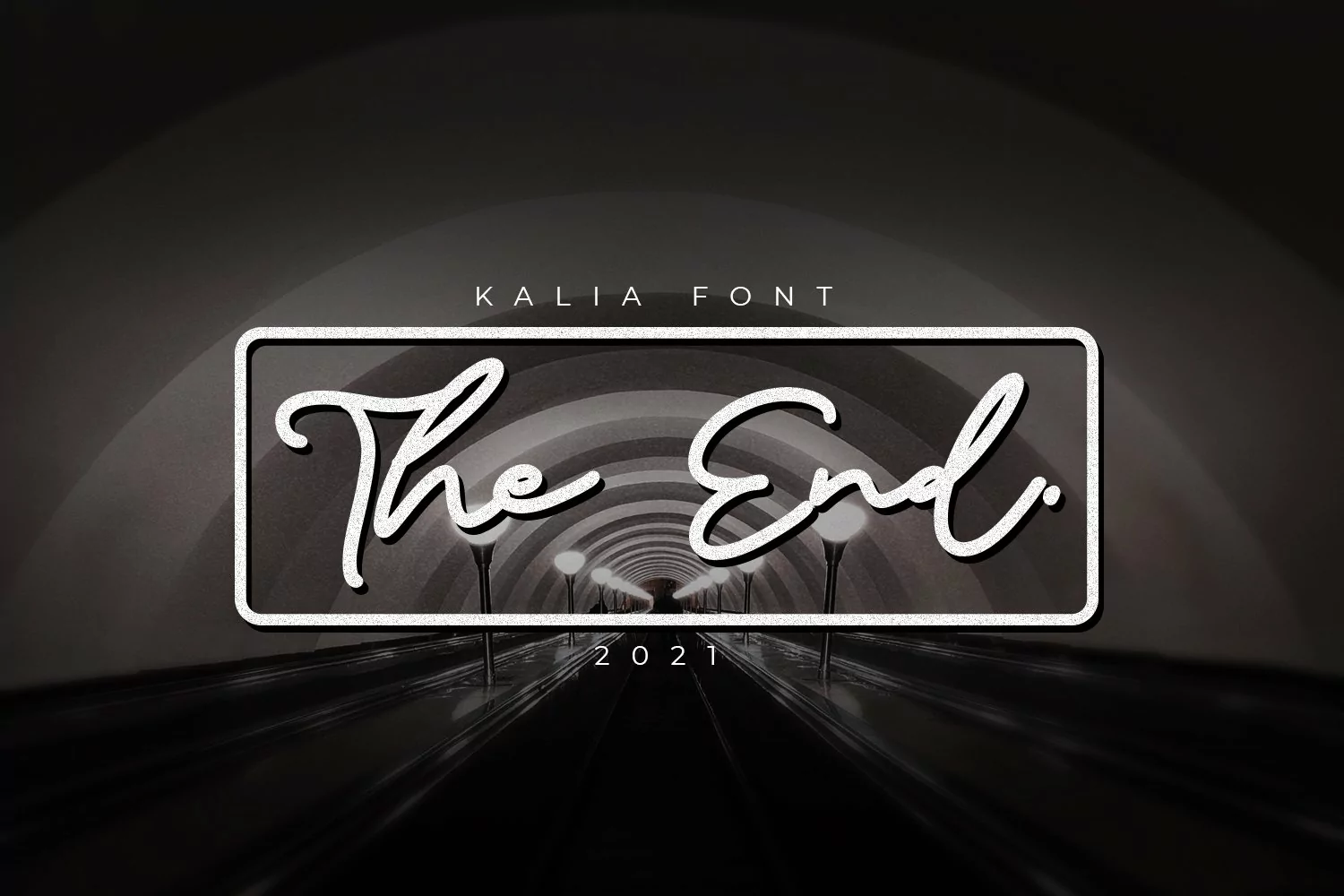
Kalia Handwritten Signature Font consisting of a fashionable sophisticated signature-style script with it's own unique curves and an elegant inky flow.
Kalia Handwritten Signature Font is perfect for branding projects, logo, wedding designs, social media posts, advertisements, product packaging, product designs, label, photography, watermark, invitation, stationery and any projects that need handwriting taste.